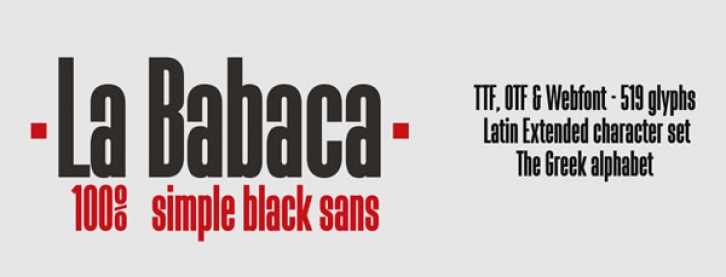
La babaca is a black typeface without serifs and compressed very simple geometric shapes. With its bends at the ends, this sober font display saves a lot of space for big titles in both graphic design and layout of books and magazines for excellent readability and great personality.